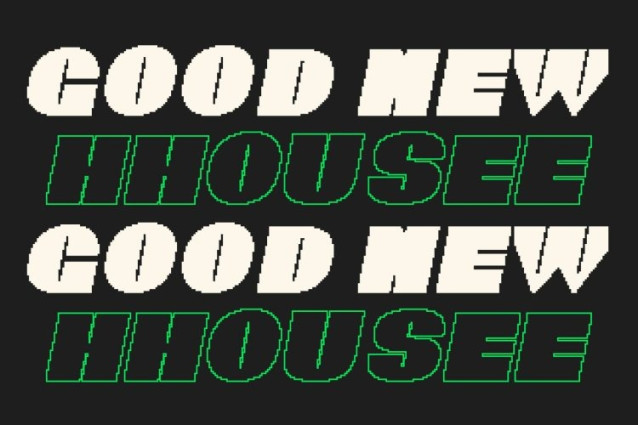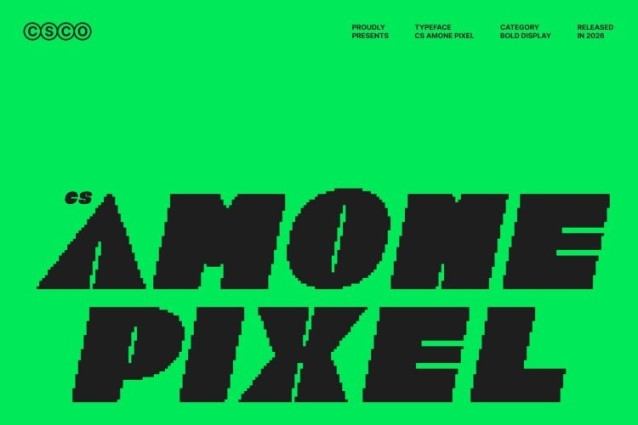
CS Amone Pixel Font
CS Amone Pixel Font This is a bold display sans serif font built to project strength, confidence, and unmistakable authority. Its heavy strokes and commanding proportions are enhanced by pixel-style details that echo classic digital typography. This pixel influence introduces an old-school digital feel while maintaining a sharp, modern structure, resulting in a font that feels powerful, assertive, and visually striking.
Strong Letterforms with Digital Weight
Each letterform is crafted with substantial weight and balanced geometry, creating a solid and grounded appearance. The thick strokes deliver maximum impact, while the pixel character adds texture and a retro-digital edge. This combination ensures excellent visibility and clarity, even from a distance, making the font feel bold, stable, and confidently modern.
Designed to Command Attention
This font thrives in designs where attention is essential. Its bold construction and pixel accents naturally draw the eye, making it ideal for headlines, posters, and hero text. The fusion of retro digital aesthetics and modern boldness creates focal points that feel decisive, energetic, and memorable across both print and digital media.
Perfect for Impactful Branding and Visual Statements
Ideal for branding, advertising, merchandise, and promotional visuals, this font helps express a fearless and confident identity. It works exceptionally well for logos, campaign graphics, and bold editorial layouts that aim to feel strong, retro-modern, and visually authoritative.